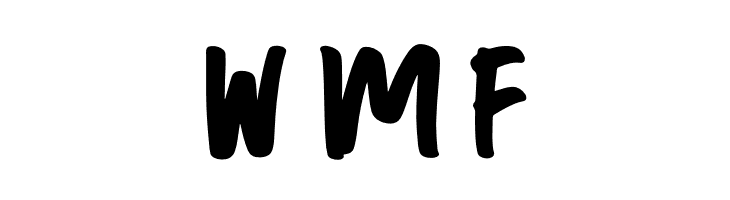
A bold, halftone-patterned font with a retro, disco-inspired style.
A bold, brush-style font with dynamic, slanted strokes.
A playful, handwritten font with a casual and dynamic style.
A bold, angular font with high contrast and geometric design.
A bold, geometric font with a modern and industrial style.
A bold, geometric font with angular strokes and a modern, industrial aesthetic.
A rugged, distressed font with a brush-like texture and jagged edges.
A bold, angular font with a futuristic and geometric design.
A bold, rounded font with a playful and whimsical style.
A playful, bold font with rounded, bubbly characters.
A playful, decorative font with swirling, festive patterns on each character.
A playful, bold, and rounded hand-drawn font with a whimsical style.
A bold, slanted font with dynamic and playful characteristics.
A bold, italicized font with a playful and dynamic style.
A sleek, modern italic font with a light and airy design.
A modern, geometric font with clean lines and a futuristic look.
A bold, geometric sans-serif font with a unique textured pattern.
A modern, elegant script font with flowing, cursive characters and medium contrast.
A bold, modern font with thick strokes and a strong, commanding presence.
A bold, expressive handwritten font with thick, rounded strokes.
A playful and whimsical script font with flowing, interconnected letterforms.
A bold, futuristic font with a three-dimensional outline and geometric style.
A modern, elegant font with clean lines and balanced proportions.
A bold, angular font with a futuristic and energetic style.
A playful, bold font with rounded, hand-drawn characters.
A dynamic and flowing script font with elegant, fluid letterforms and lively contrast.
A playful, hand-drawn font with irregular strokes and a whimsical style.
A bold, rounded font with a playful and modern style.
A playful, bubble-like font with thick outlines and a cartoonish style.